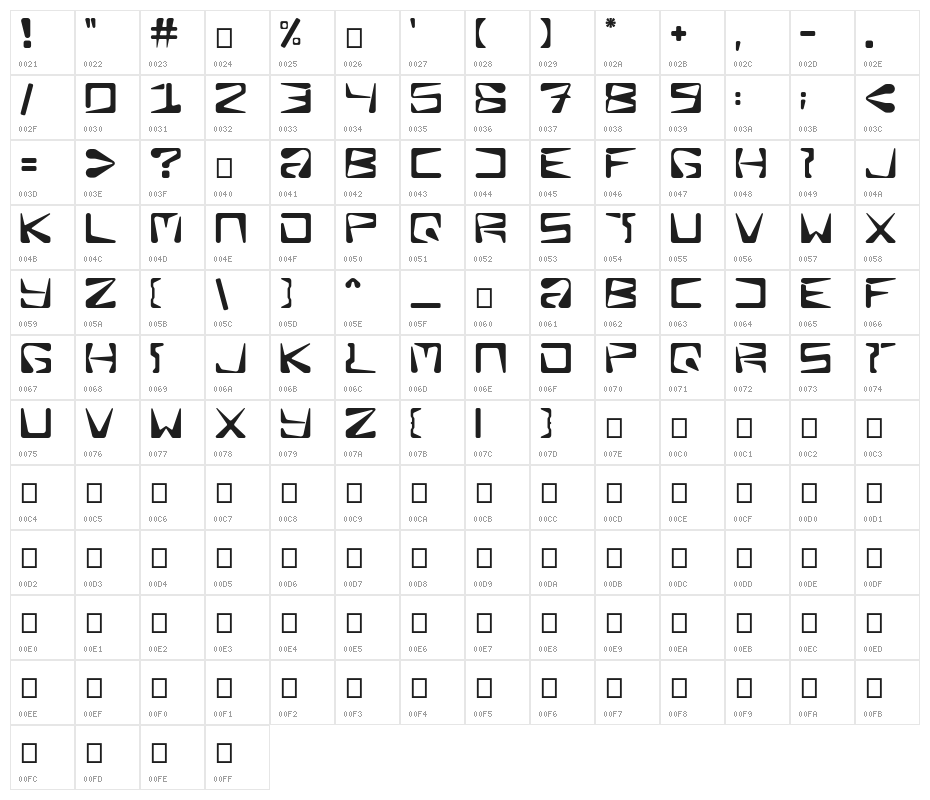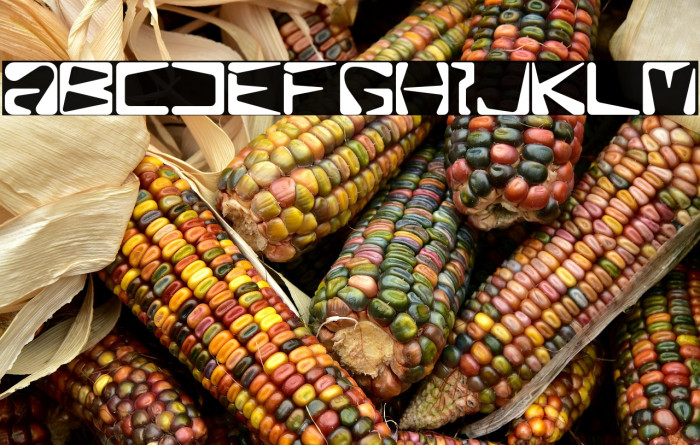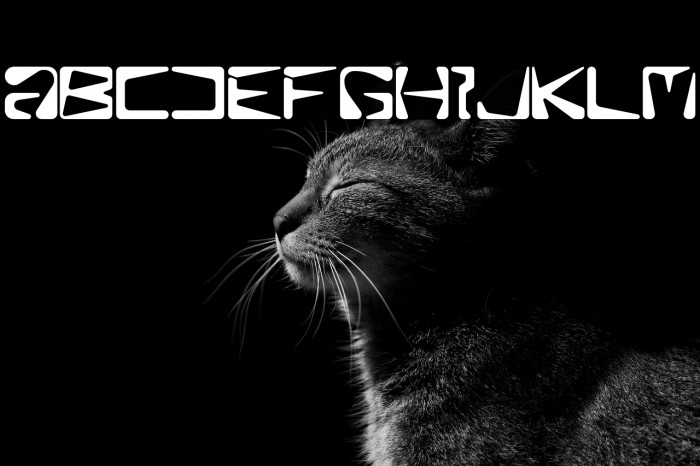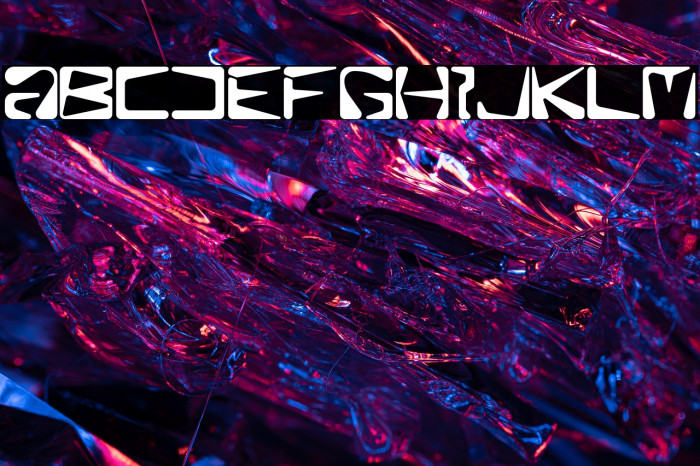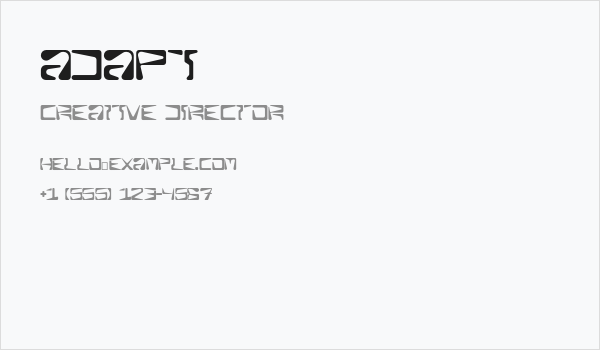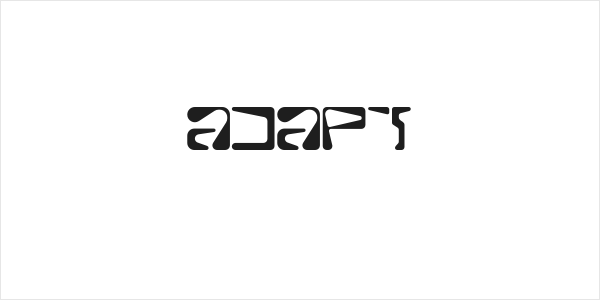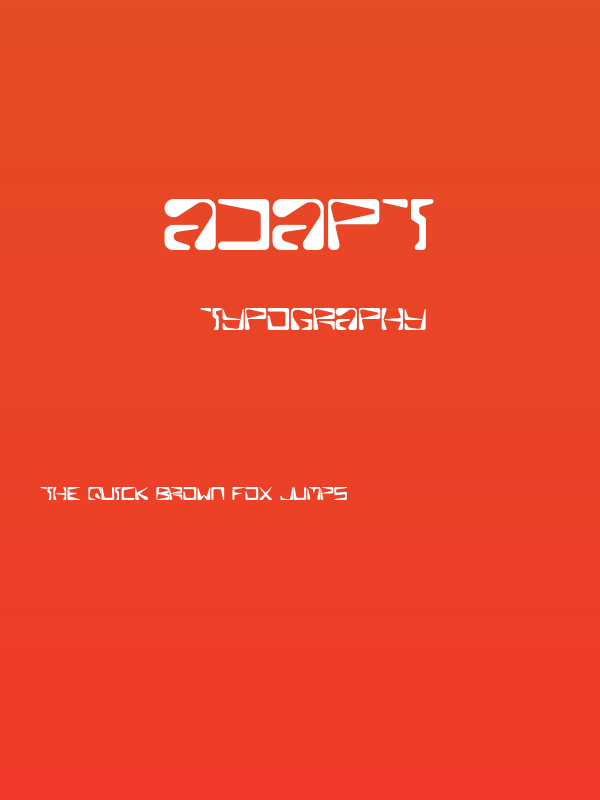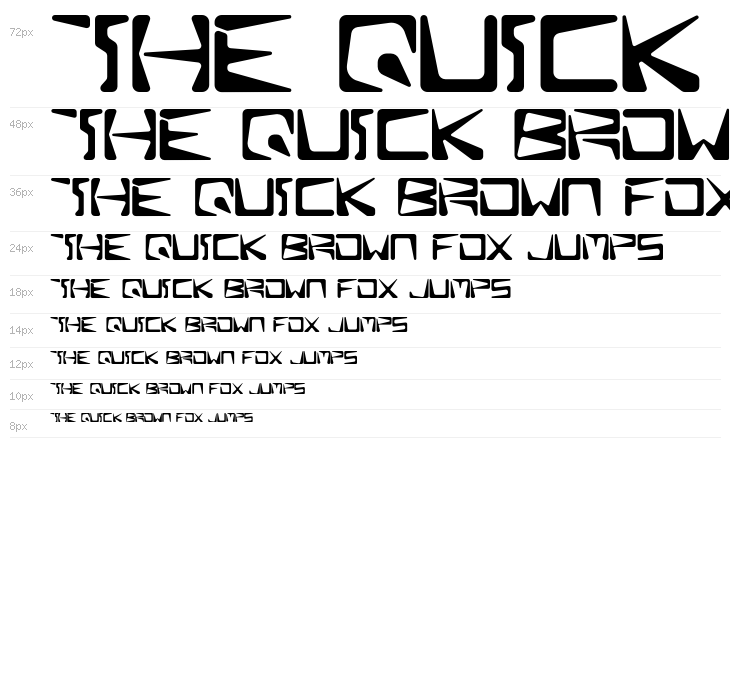
ADAPT Font
ADAPT Description
This font features a futuristic and geometric design, characterized by its angular and sharp edges. The letters are bold and have a distinct, modern appearance with a unique cut-out style that gives them a dynamic and edgy look. The uppercase and lowercase letters maintain a consistent style, while the numbers and special characters complement the overall aesthetic. The font's design is striking and attention-grabbing, making it suitable for projects that require a bold statement.
| Proposed Projects | Ideal for sci-fi themed designs, technology branding, video game titles, and modern posters. |